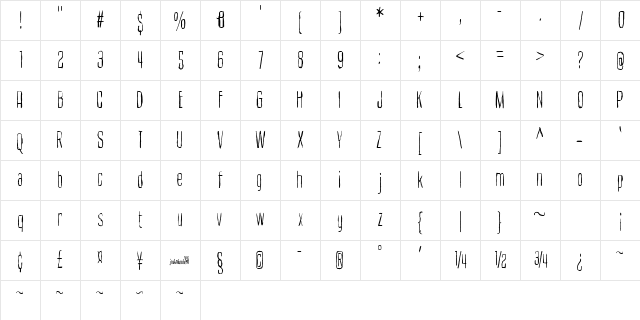
Complete Cult of the toucan Regular glyph index. Displaying only characters natively supported by Cult of the toucan Regular font.
Cult of the toucan is a composed and adaptable typeface that performs quietly and consistently across a wide range of design contexts.